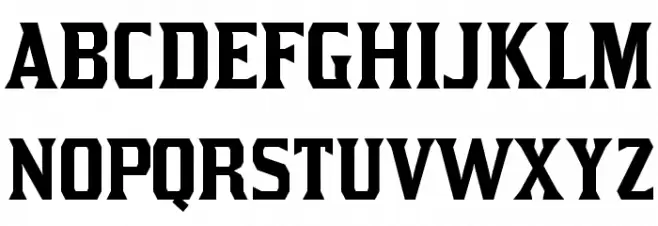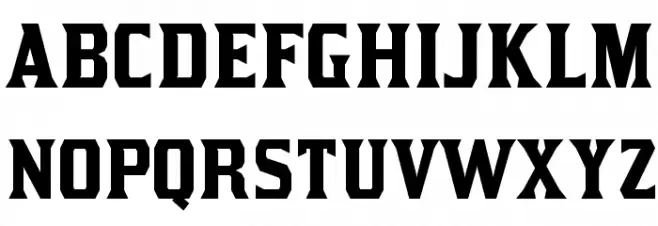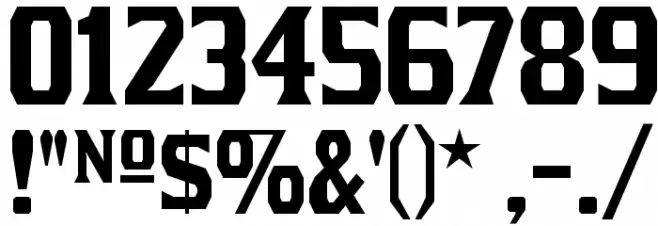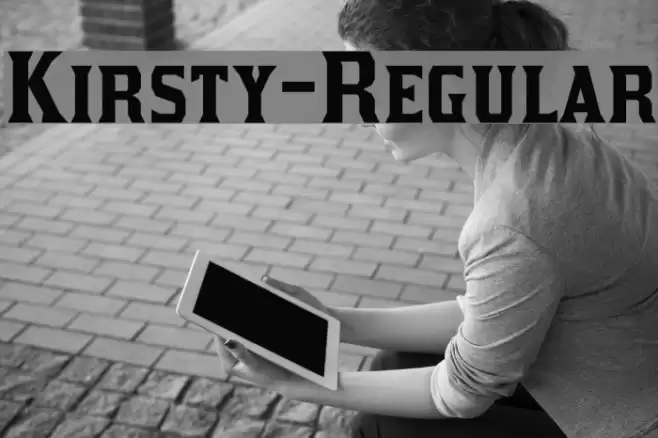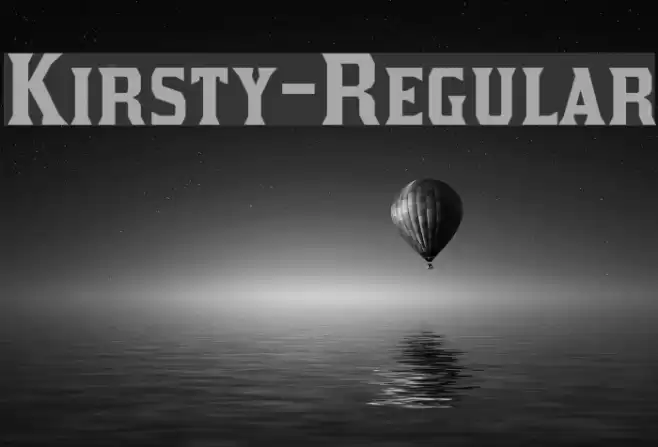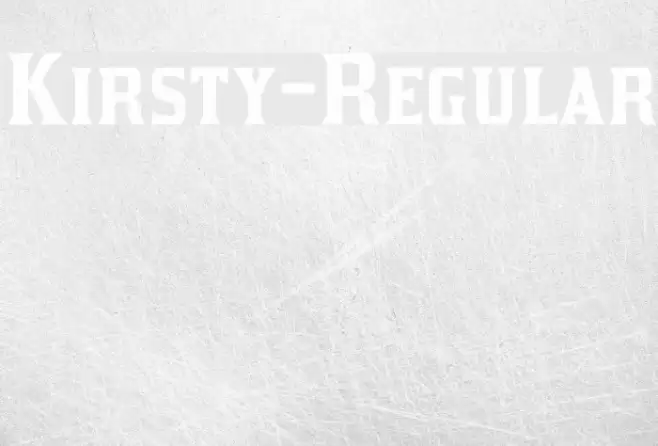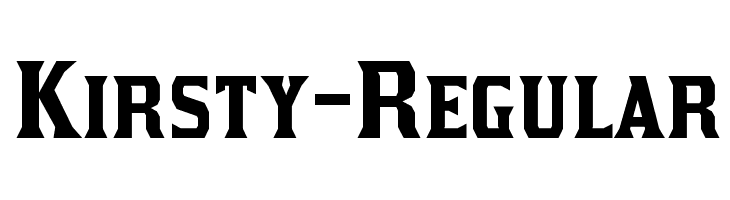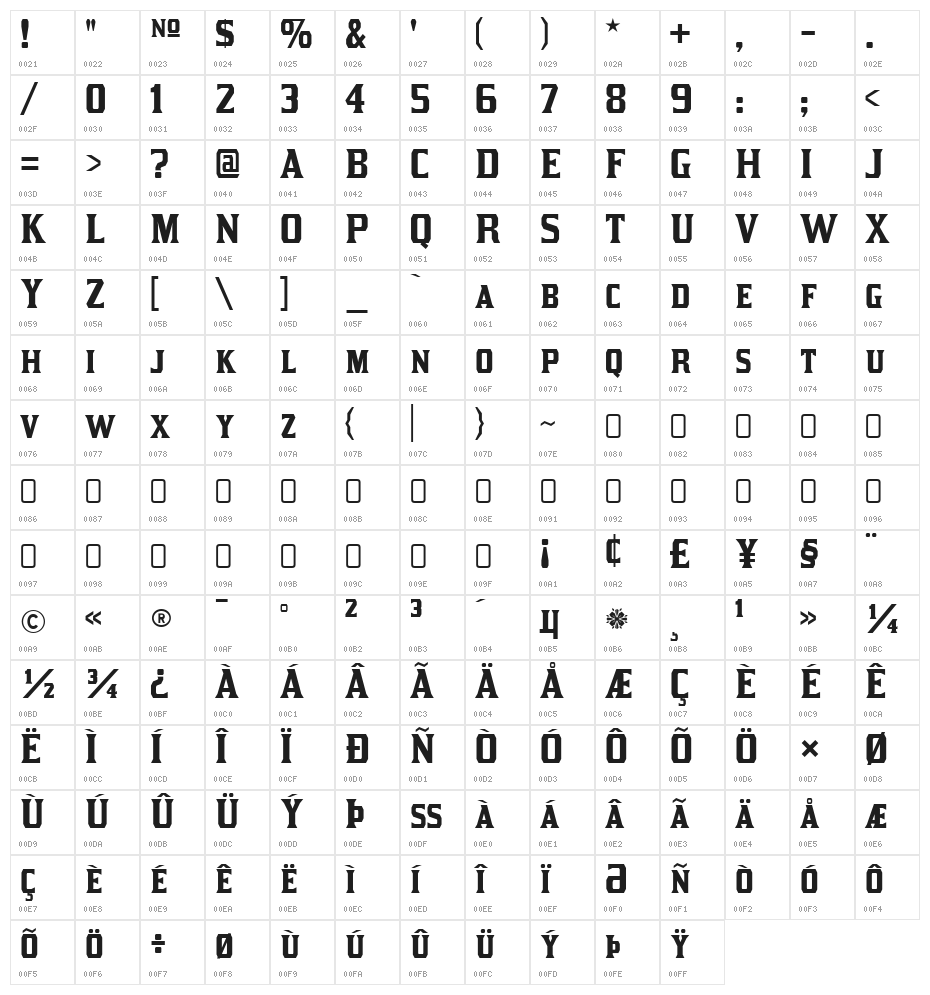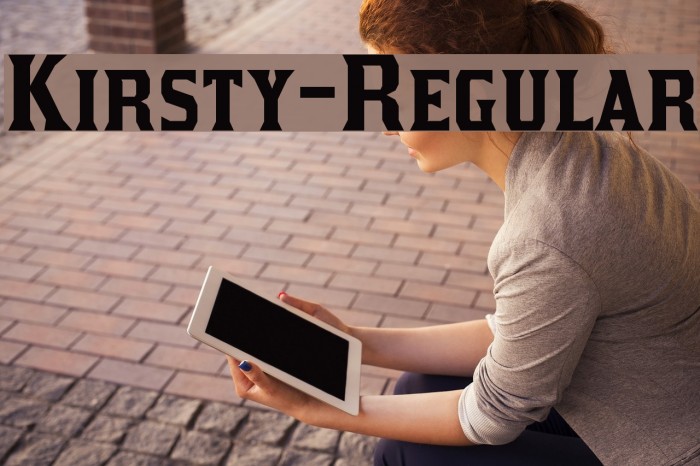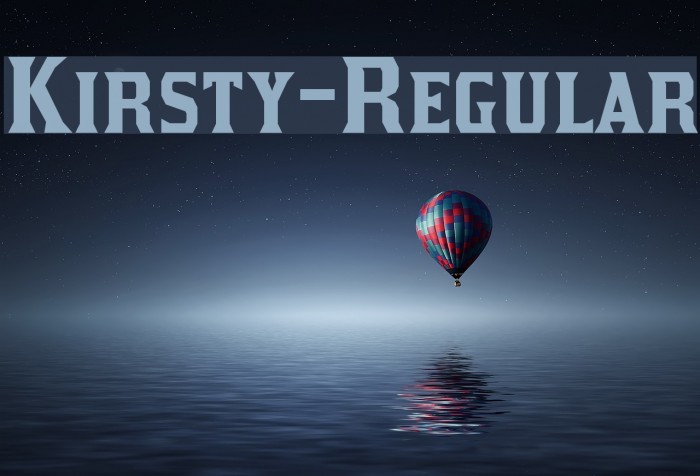
Kirsty-Regular Font
Kirsty-Regular Description
This font features a bold and striking design with a strong geometric influence. The characters are sharply defined with angular edges and a consistent weight throughout. The uppercase letters are particularly prominent, showcasing a sense of authority and impact. The numerals and special characters maintain the same boldness, ensuring uniformity across all glyphs. The style is reminiscent of vintage athletic or collegiate typefaces, making it ideal for projects that require a commanding presence.
A bold, geometric font with a vintage athletic style.
- Proposed Projects: Ideal for sports team branding, event posters, and retro-themed designs.
- Category: Slab Serif
- Overall Style: Vintage